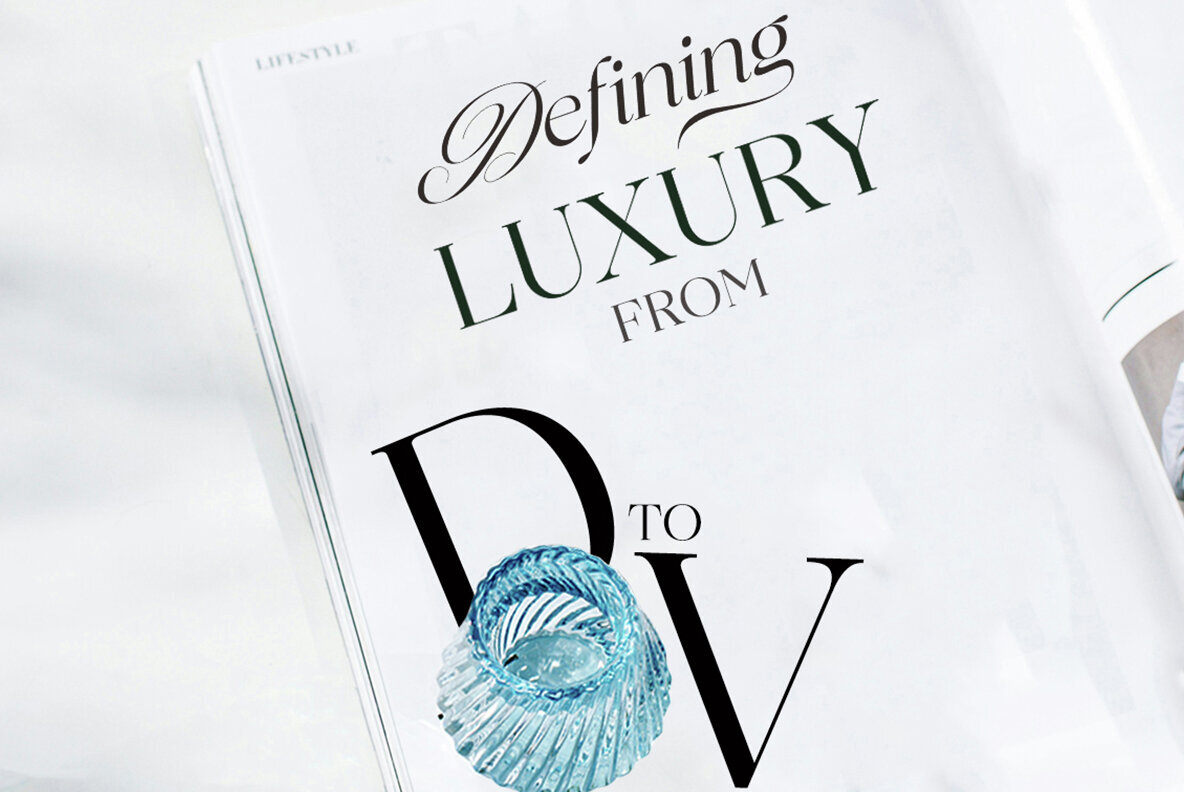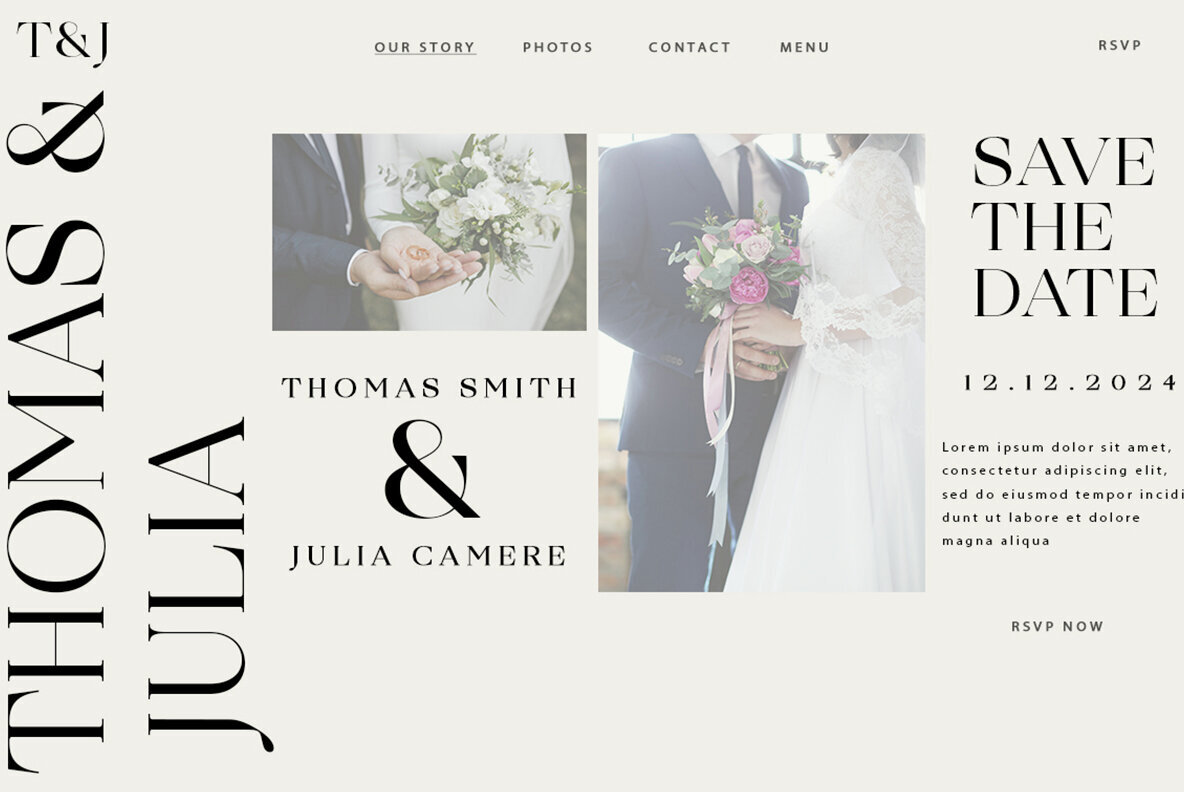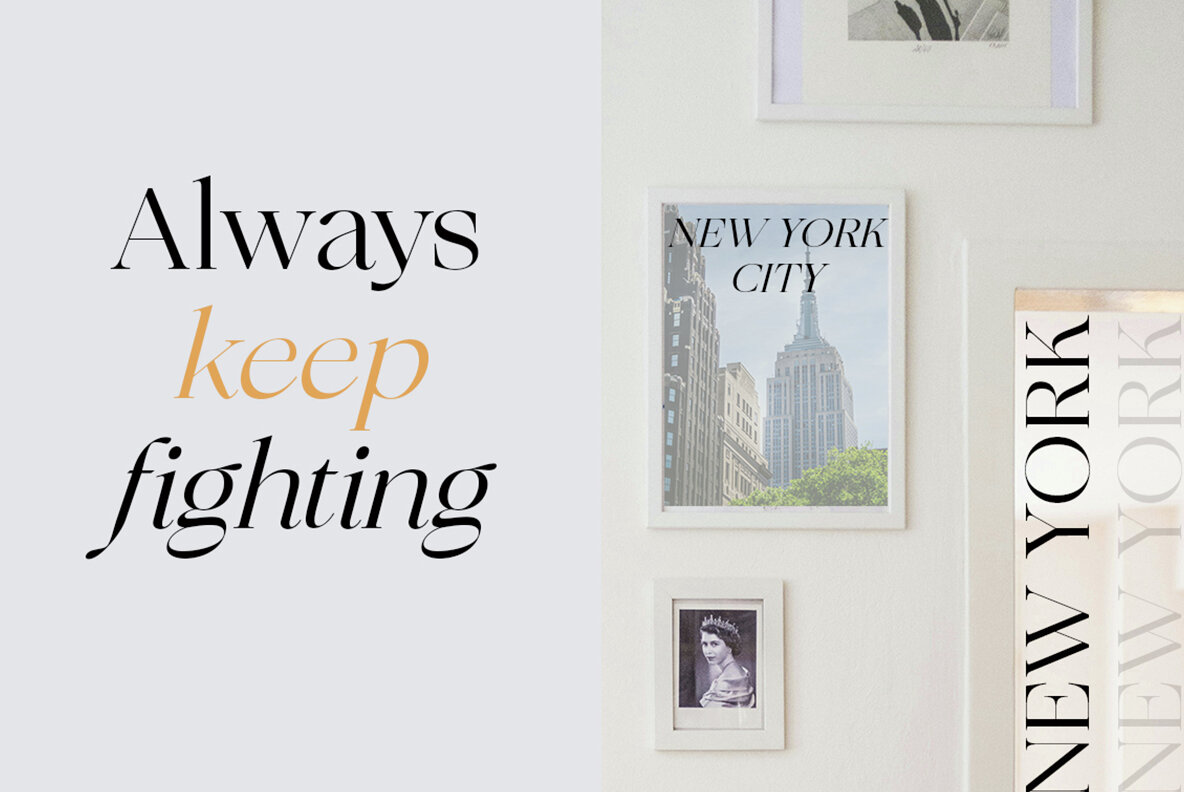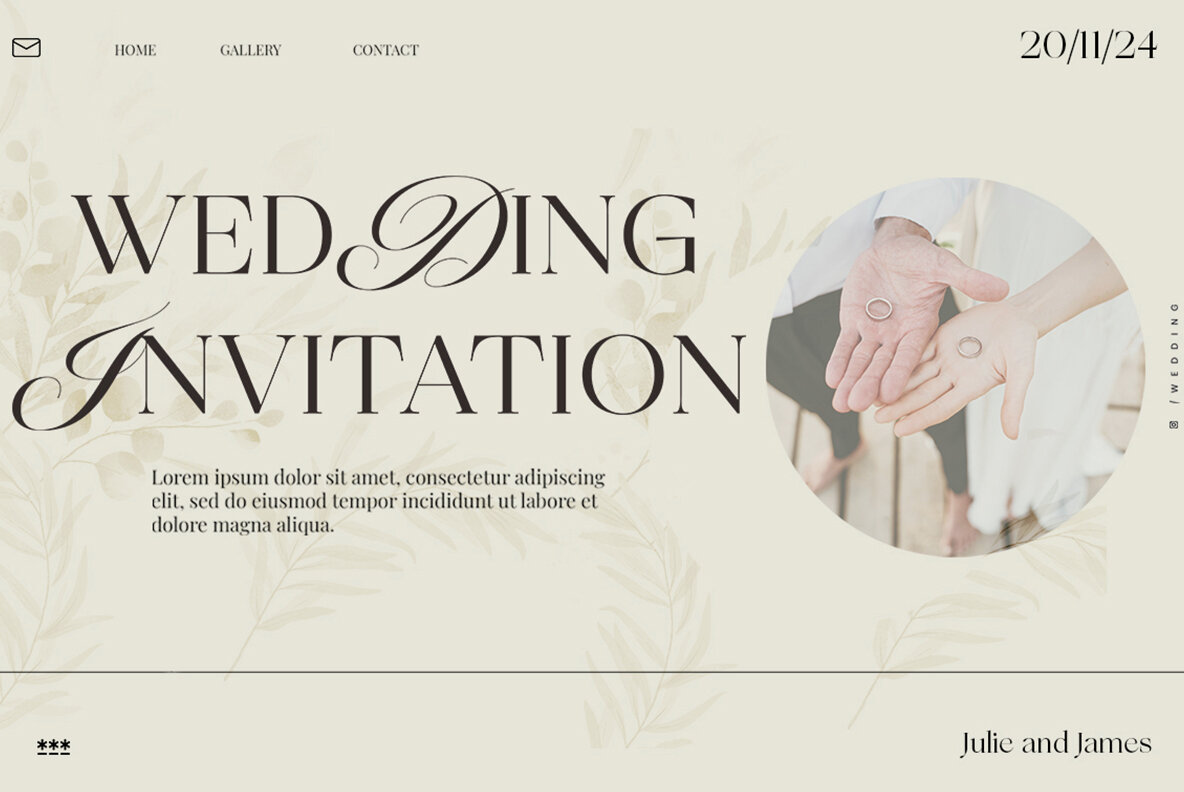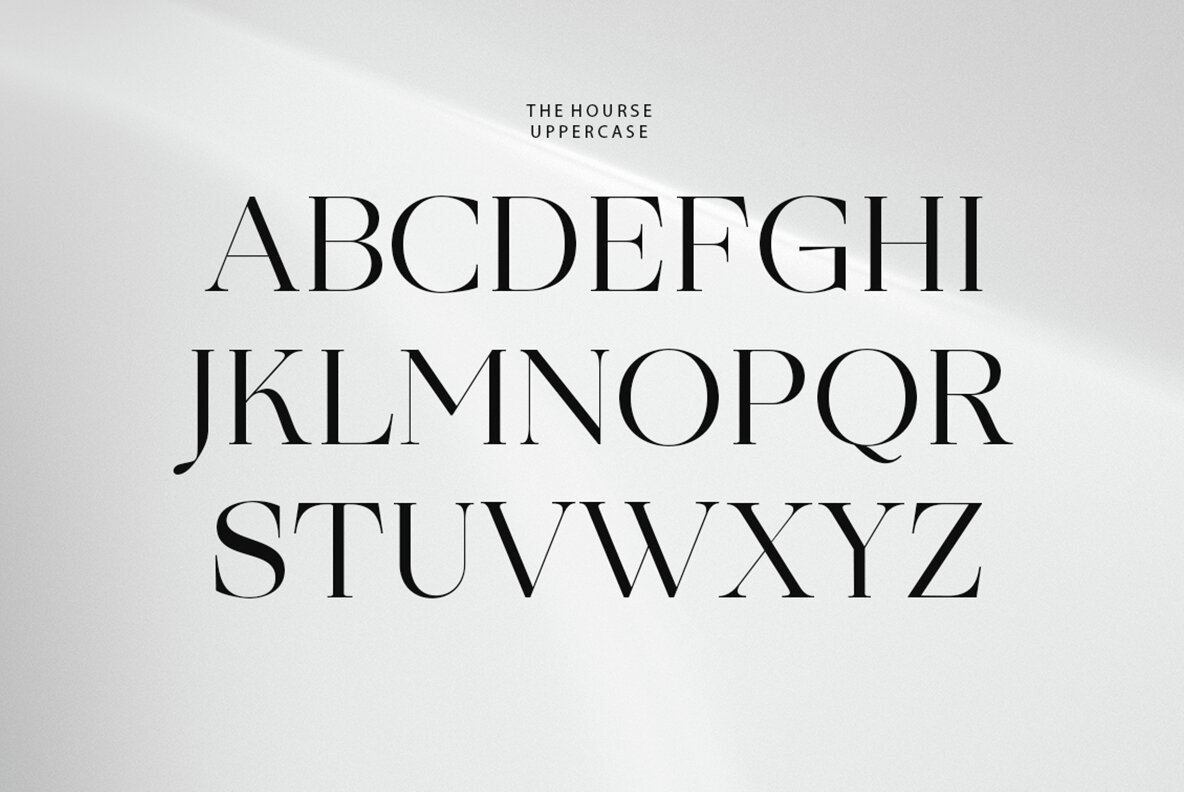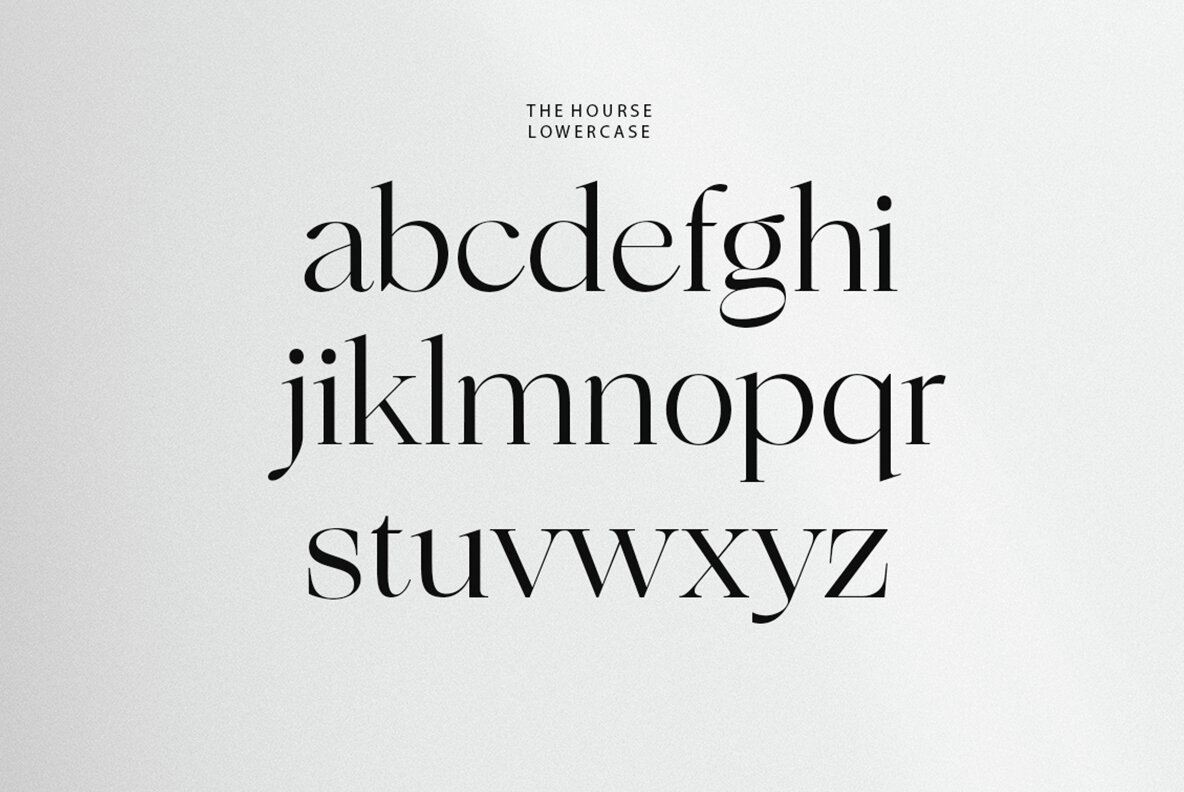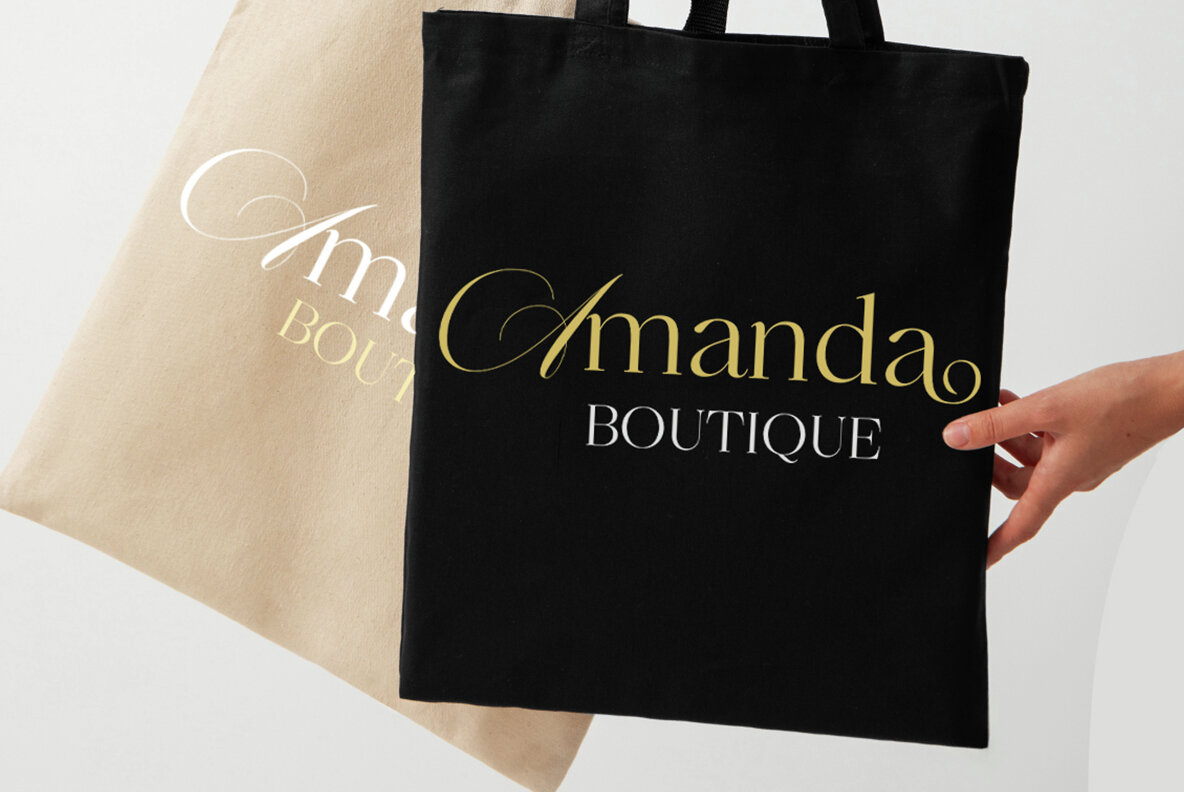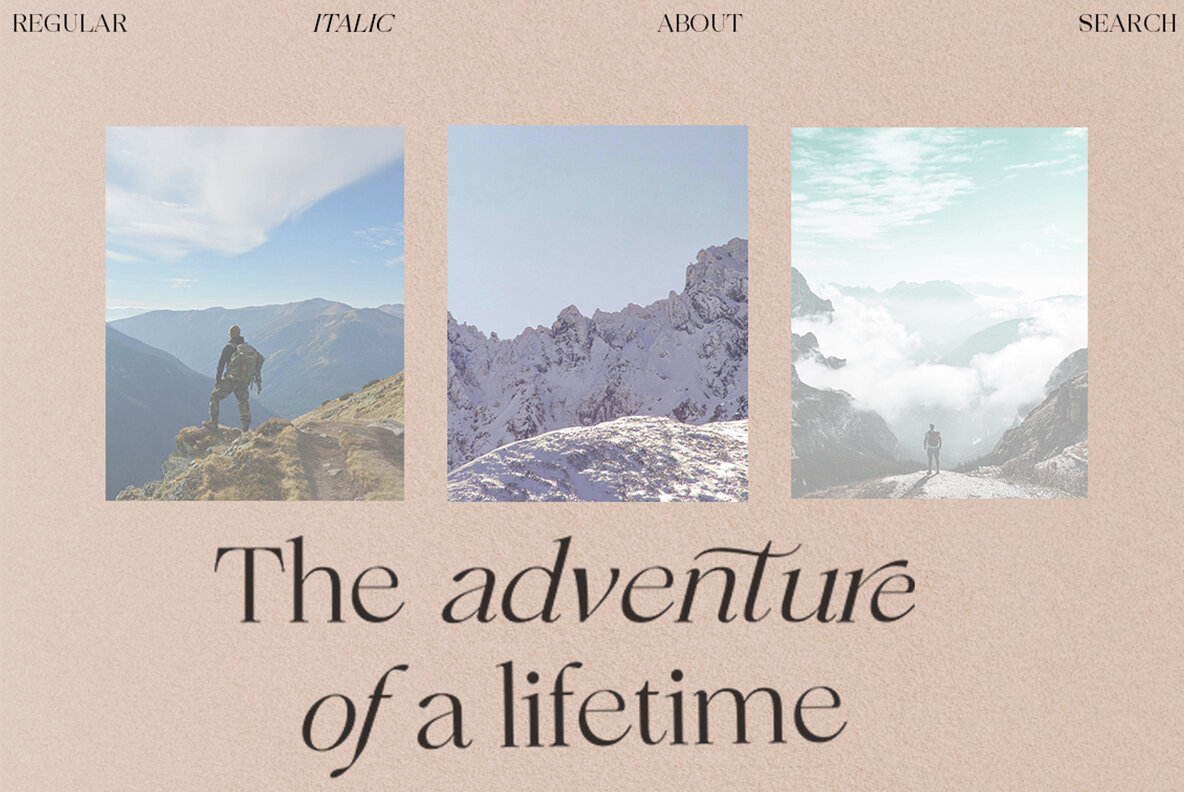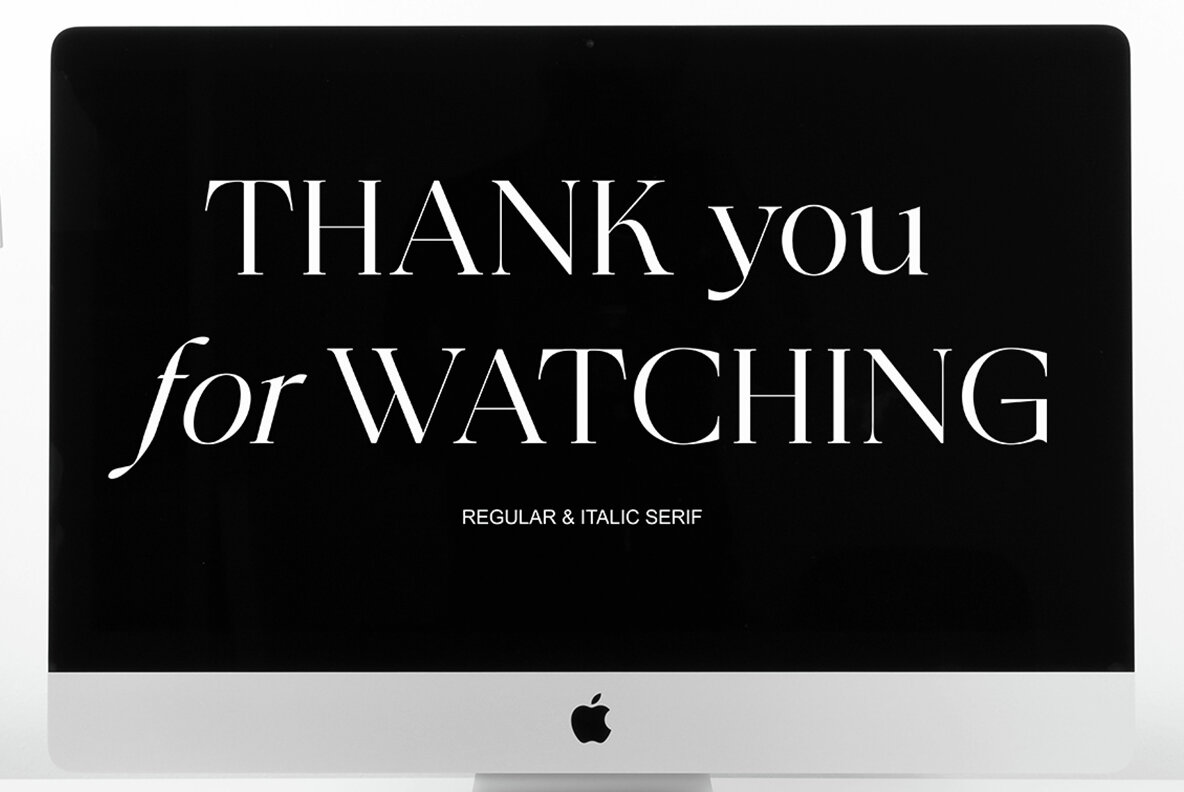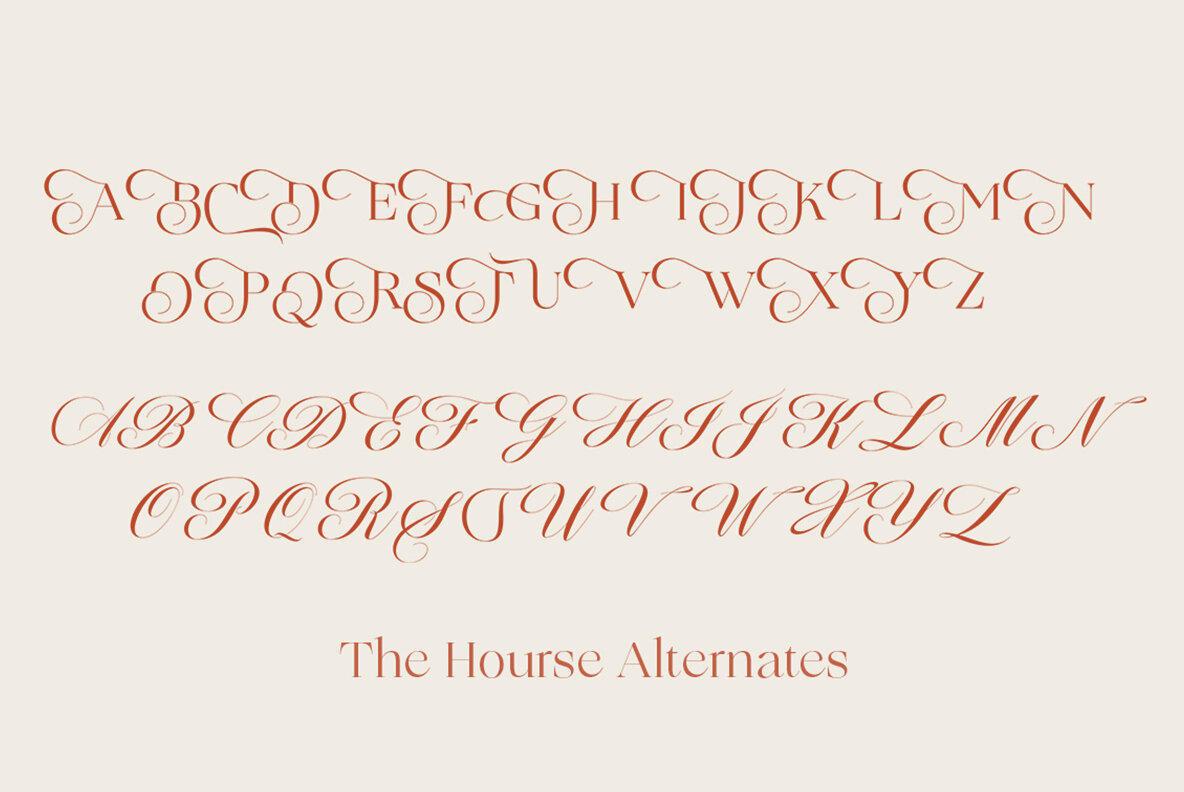
The Hourse Font
The Hourse Serif is a contemporary, classy, and warm typeface with clean and smooth details. Designed for enhanced legibility, it's ideal for branding, magazines, posters, advertising, print, packaging, headlines, logos, and web design.